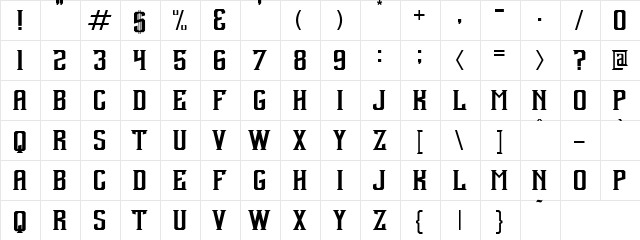
Debute Regular Font Preview
Debute Regular
Debute Regular Font Details
| Foundry | Twicolabs Design |
| Designer | Twicolabs Design |
Design Context for Debute Typeface
Debute is a composed and adaptable typeface that performs quietly and consistently across a wide range of design contexts.
Pro Tip: Use Debute in both headline and body roles to test its range before committing to a single application.